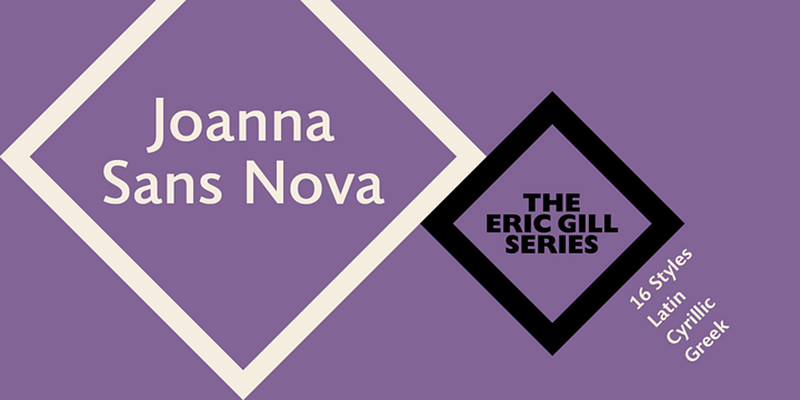
The Joanna® Sans Nova family is the only typeface in the Eric Gill Series that was not initially designed by Gill. Created by Monotype Studio designer Terrance Weinzierl over a three-year period with digital applications at the forefront of the design criteria, Joanna Sans Nova is a humanist sans serif based primarily on Gill’s original Joanna. The design comprises 16 fonts, from thin to black, each with a complementary italic. Joanna Sans Nova has a larger x-height to ensure high levels of legibility – even on small digital screens. Due to its inherent humanist proportions, Joanna Sans Nova is surprisingly comfortable for longer form reading. Its low contrast in character stroke weights also improves imaging in a variety of environments. In addition, the calligraphic and fluid details enable the roman and italic designs to shine in headlines and other display uses. Joanna Sans features a robust range of OpenType features for fine typography, including small caps, old style figures, proportional figures, ligatures, superscript and subscript figures and support for fractions. With over 1000 glyphs per font, Joanna Sans supports more than 50 languages – in Latin, Greek and Cyrillic scripts. License [Joanna Sans Nova](https://www.myfonts.com/fonts/mti/joanna-sans-nova/) on MyFonts